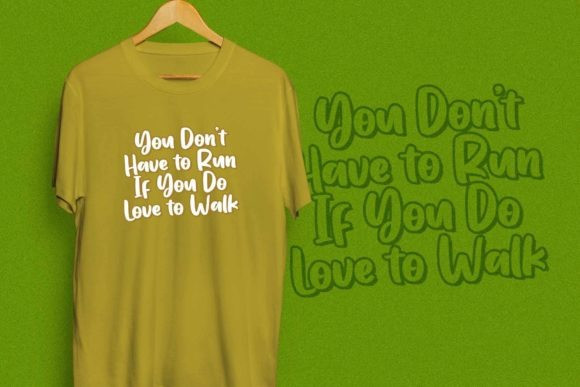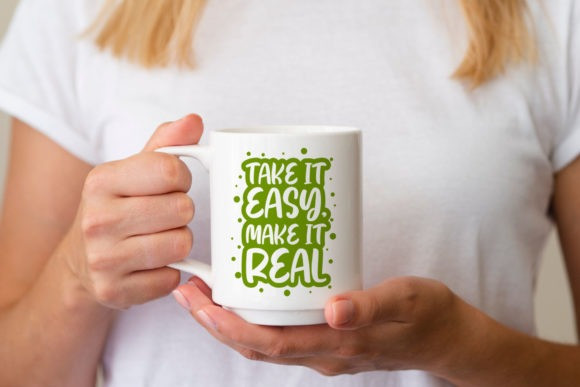
Creamy Matcha Font
Creamy Matcha Font is a sweet and friendly handwritten font. Its natural and unique style makes it incredibly fitting to a large pool of designs. The only limit is your imagination! It gives stylish and authenticity and is the perfect choice for any teenage activity or branding project.